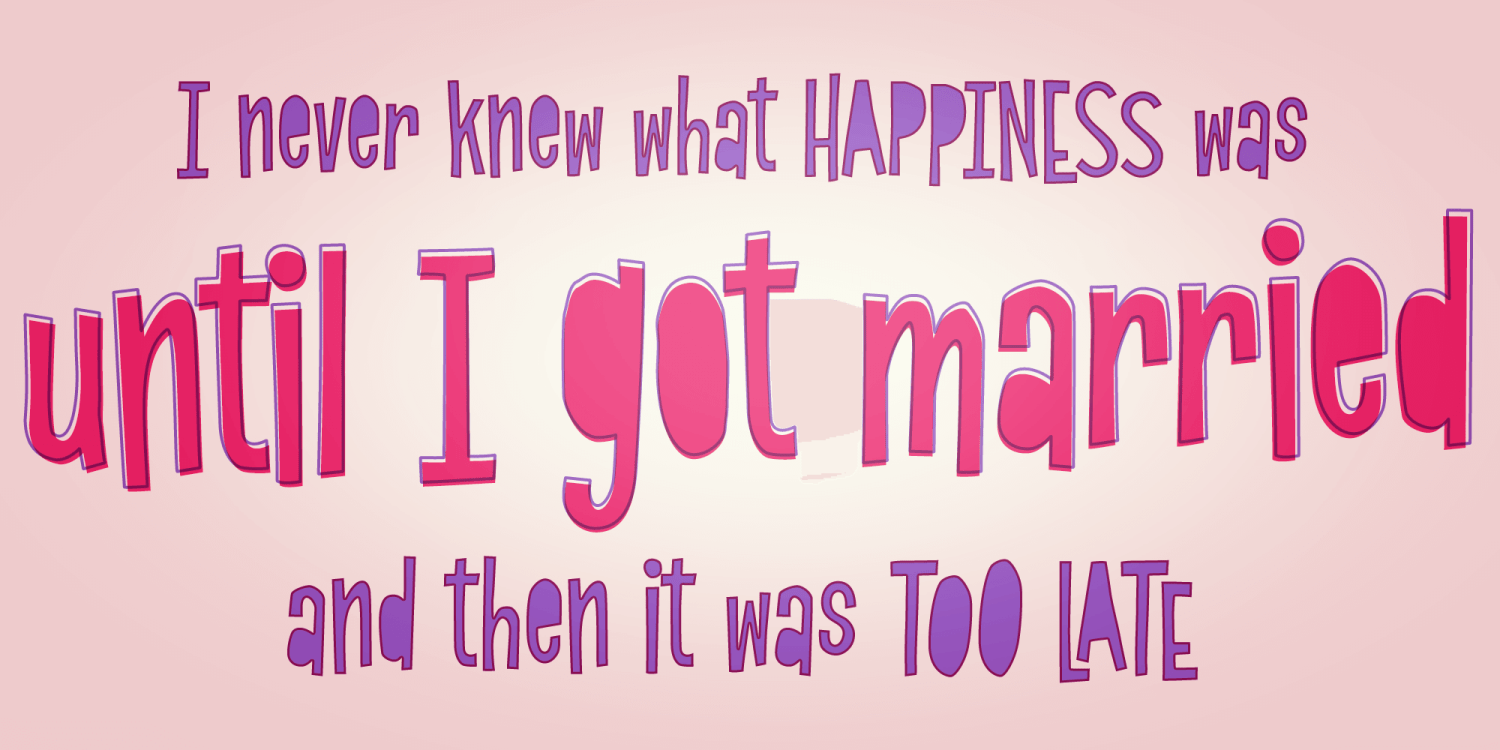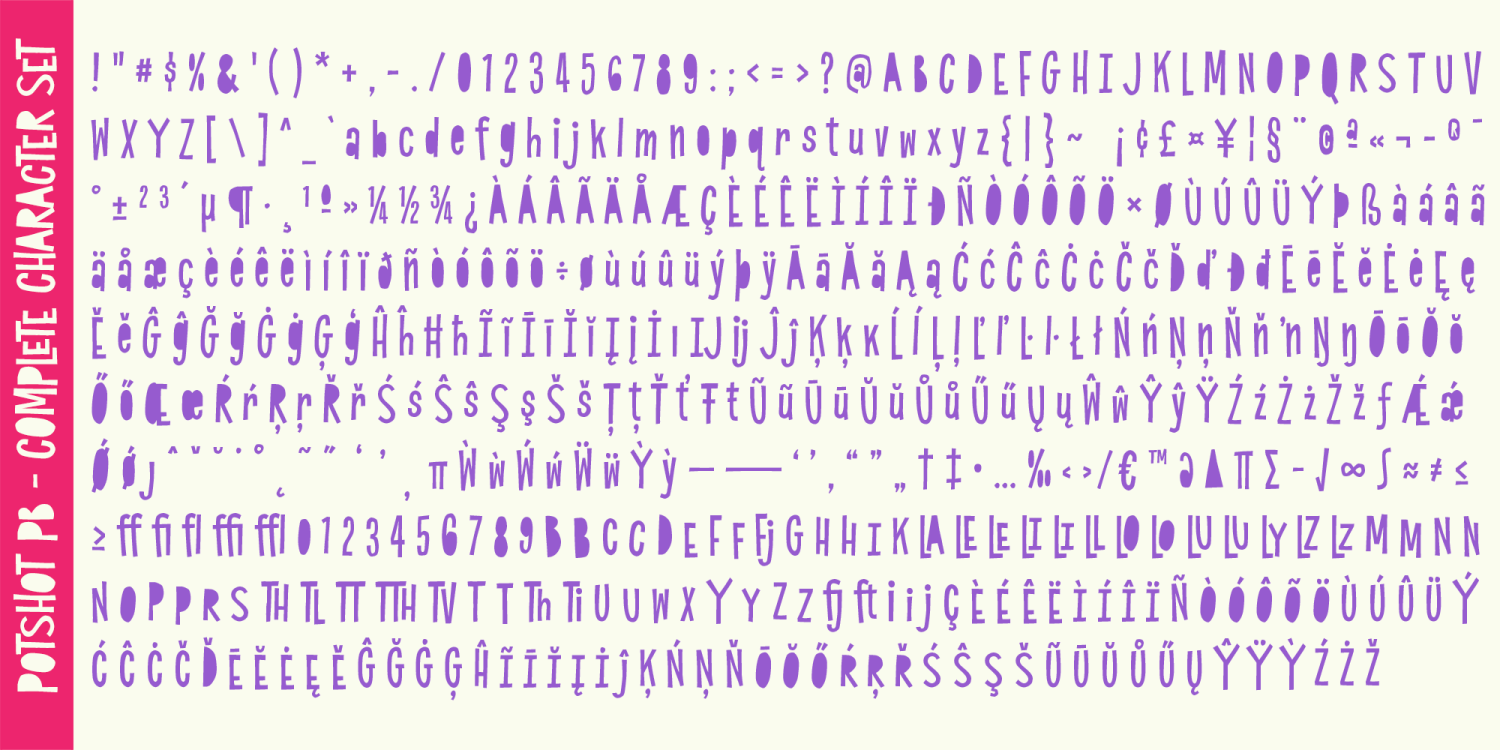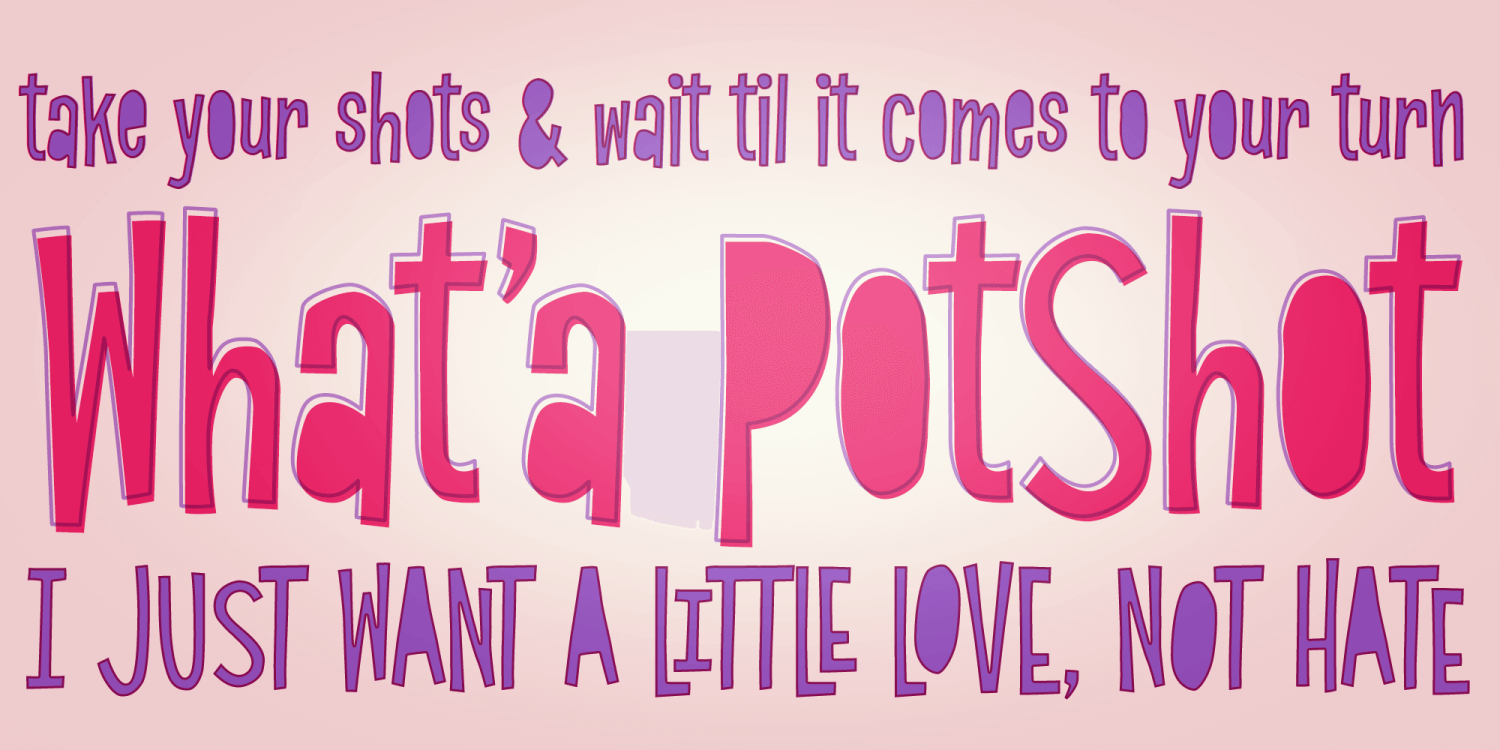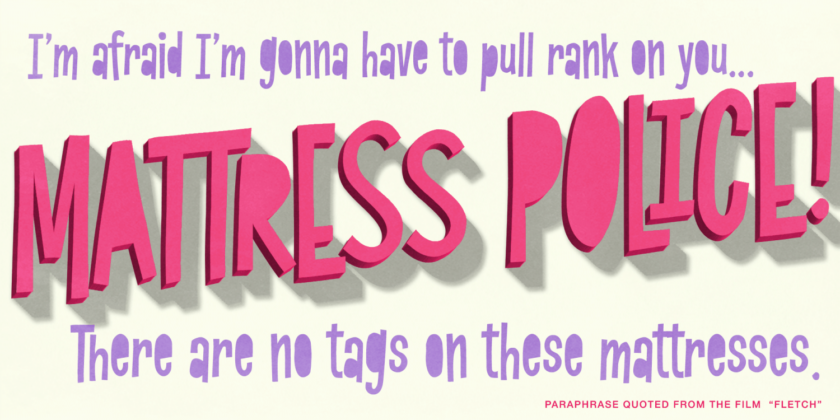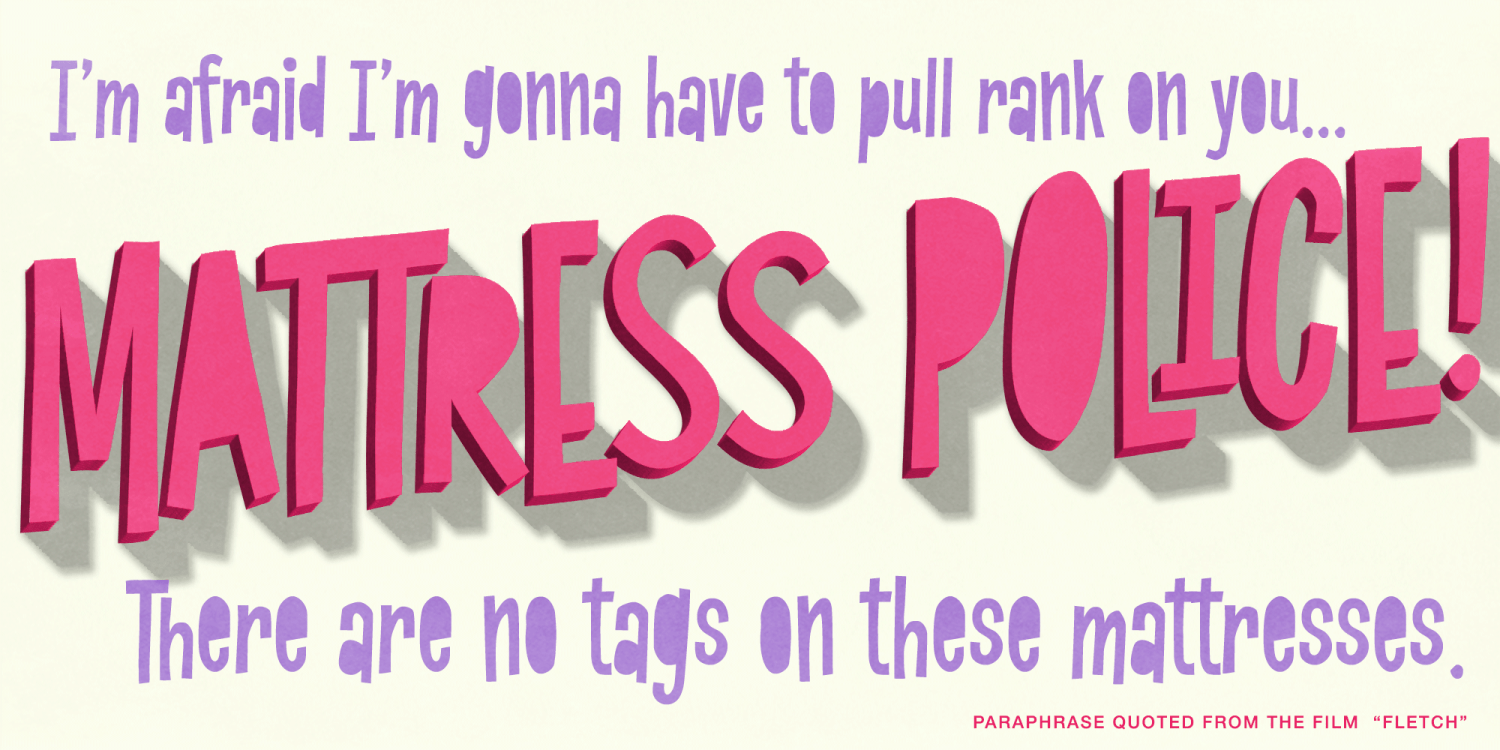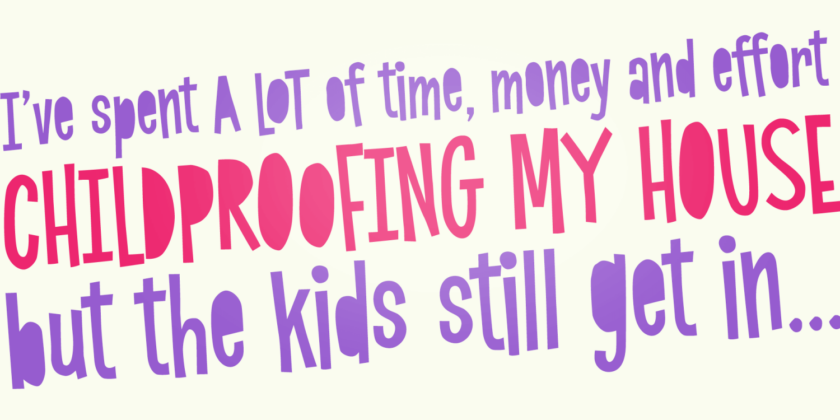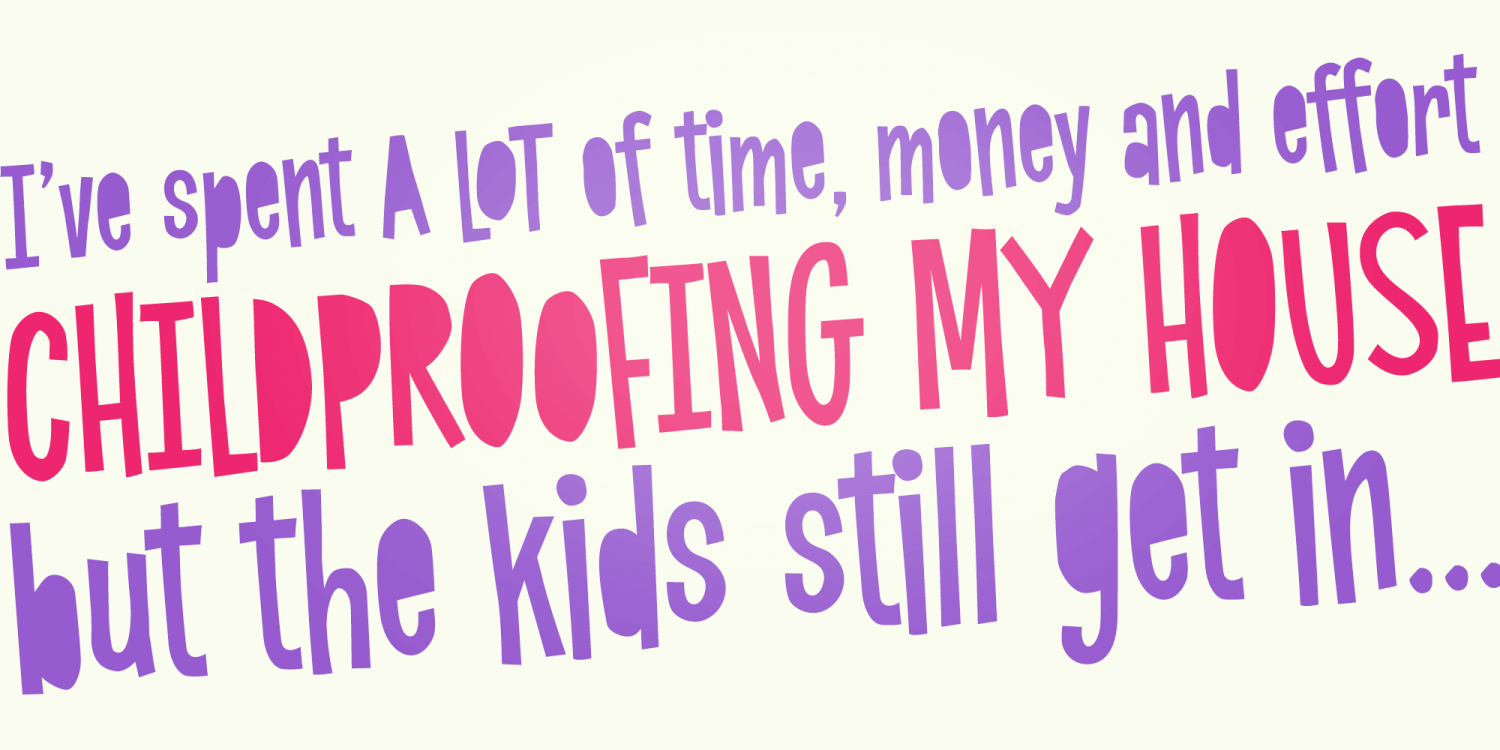
Quirky and overly casual, PotShot was inspired by the lettering on on an odd vintage greeting card. Uniquely drawn with NO COUNTERS it draws attention while feeling familiar yet being totally unique. It was just begging to be fleshed out and made into…